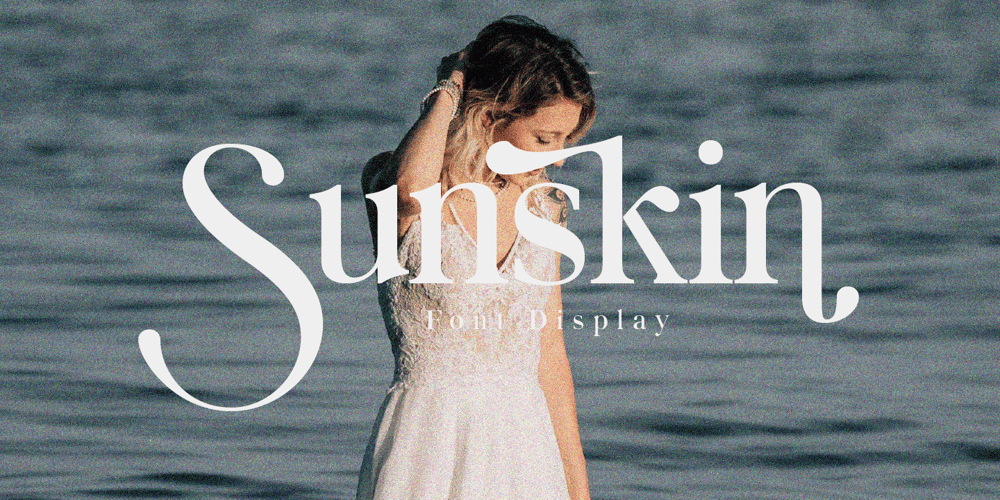
Sunskin Font Family was designed by Tuanku Muhammad Iqbal and published by Teweka. Sunskin contains 2 styles and family package options. Sunskin is a fresh new font, Made in its own style,Sunskin Has 2 types of fonts namely Regular font and Italic font. Sunskin fonts are suitable for :Branding, Logotype, Posters, Social Media and many more.